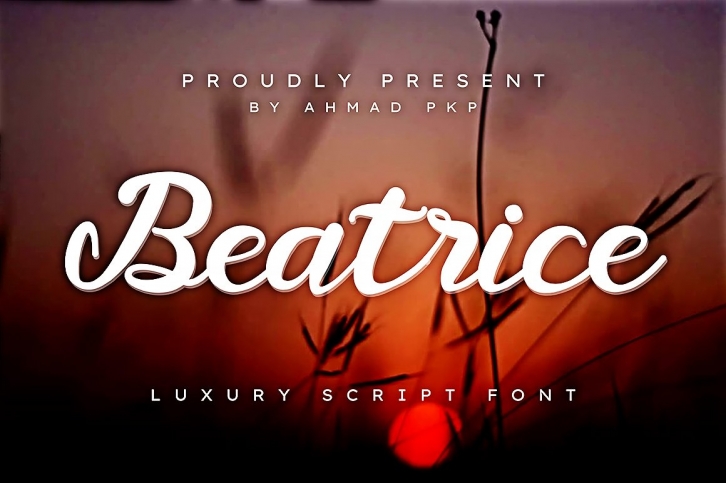
Beatrice Elegant Script FONT Download
Beatrice Elegant Script Font Download
Beatrice is an elegant cursive calligraphy font. With thin contrasting strokes, the characters are fun with a bit of binding and stylistic alternatives. To give you extra creative work. This Beatrice font is great for logo designs, social media, Movie Titles, Book Titles, short text even long text letters and is great for your secondary text fonts with sans or serif. Create stunning masterpieces with the Beatrice font.